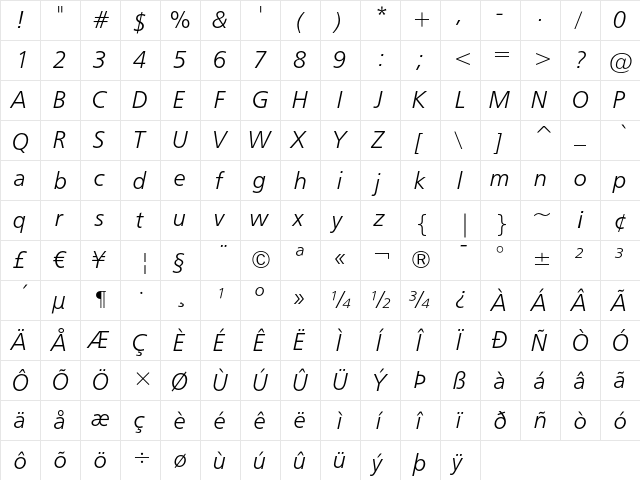
Humanist 777 Light Italic Font Preview
Humanist 777 Light Italic
Humanist 777 Light Italic Font Details
Design Context for Humanist 777 Typeface
Humanist 777 is a composed and adaptable typeface that performs quietly and consistently across a wide range of design contexts. Its italic angle brings a sense of urgency and motion to the letterforms. Its slender proportions lend an understated elegance to any composition.
Pro Tip: Try Humanist 777 for annotation and caption copy alongside an upright companion — the contrast in angle creates a dynamic but ordered typographic system.